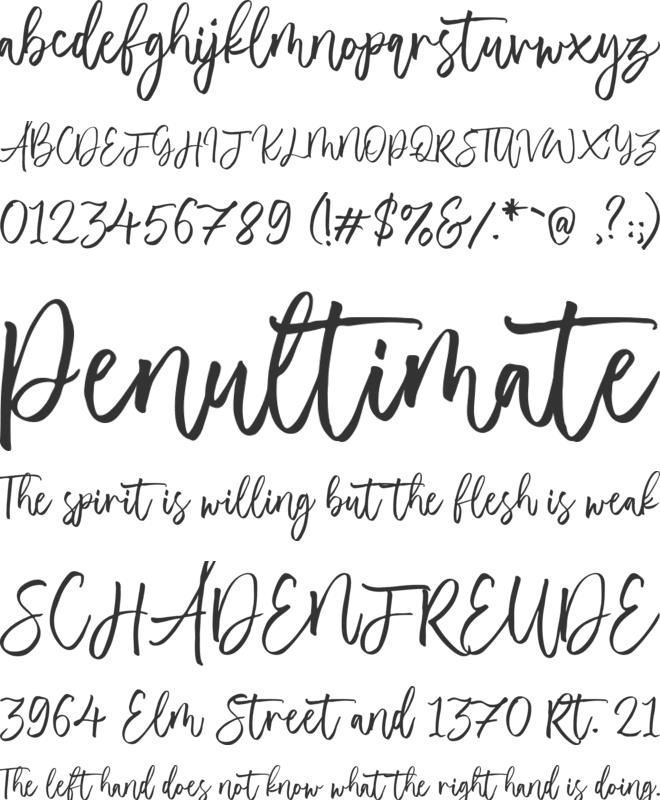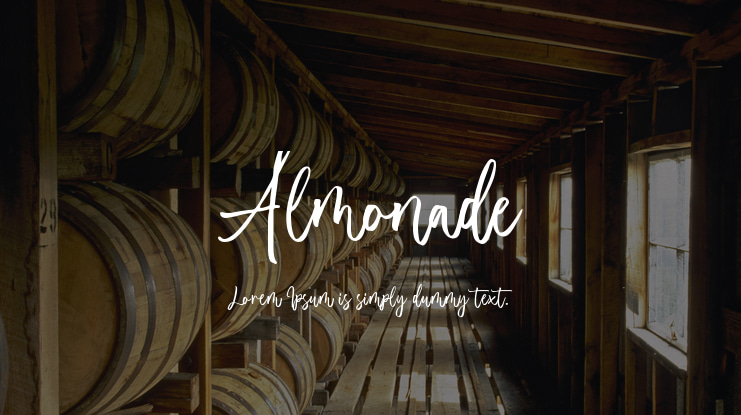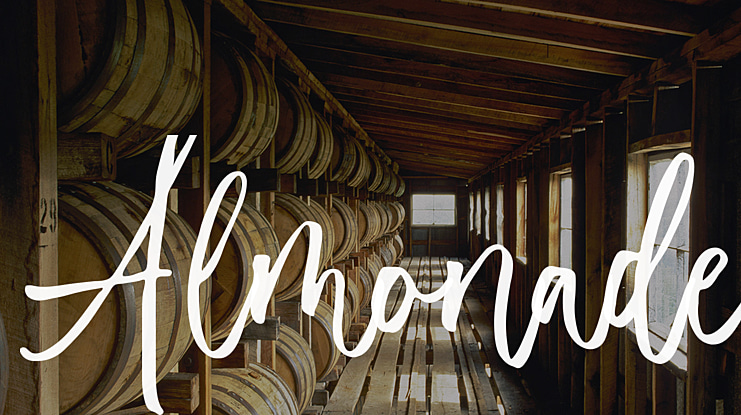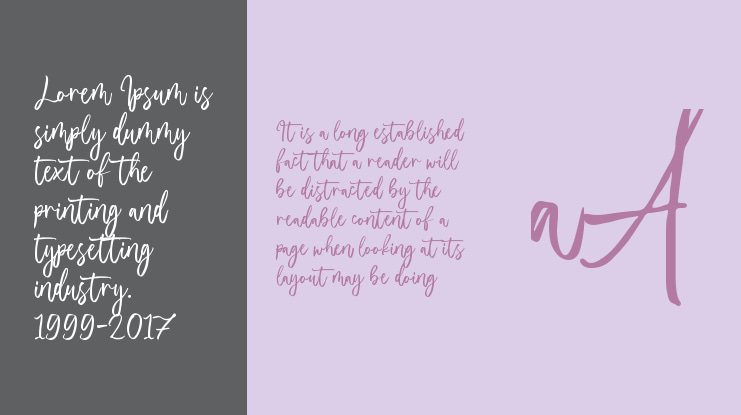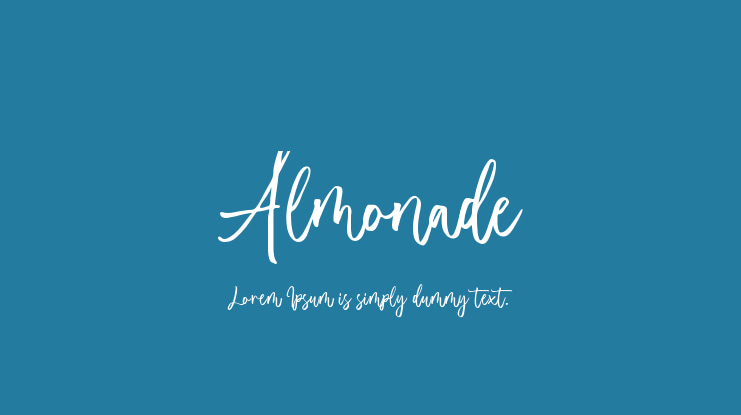
Almonade Font
Proudly Present, Almonade Font.
Almonade is a Modern Handwritten Font.
Almonade is perfect for product packaging, branding project, megazine, social media, wedding, or just used to express words above the background.